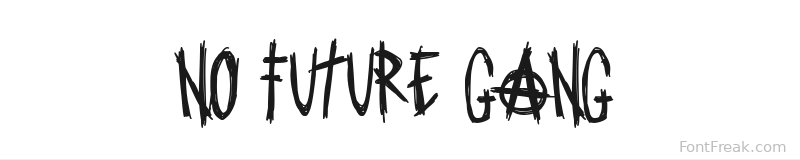
No Future Gang
The No Future Gang font by woodcutter Manero is a striking display typeface characterized by its bold, edgy aesthetic. This font stands out in the realm of decorative styles, showcasing an unconventional design that combines a rebellious spirit with creative flair. The strokes are thick and uneven, contributing to a raw, hand-drawn appearance that evokes a sense of urgency and individuality. The contrast between thick and thin lines adds a dynamic quality, while the irregular spacing enhances its unique character. The font features decorative elements, such as jagged edges and a slightly distressed look, which further emphasize its unconventional vibe.
Ideal for various creative projects, the No Future Gang font excels in settings that demand attention and a touch of rebellion. It's perfect for designing eye-catching movie posters that aim to convey a bold narrative or for crafting vibrant music event flyers that capture the essence of modern underground culture. Additionally, it can be used effectively in urban-themed restaurant menus, offering an authentic touch that resonates with youthful patrons. Graphic designers and content creators will find this font particularly appealing, as it allows them to break away from traditional typography and make a powerful statement.
The No Future Gang font free download is an excellent opportunity for creatives looking to infuse their work with a distinctive and memorable style. Its unique visual characteristics and versatility make it a standout choice for anyone wishing to convey a message of defiance and individuality. Whether used in print or digital media, this font is sure to leave a lasting impression, making it an invaluable addition to any designer's toolkit.